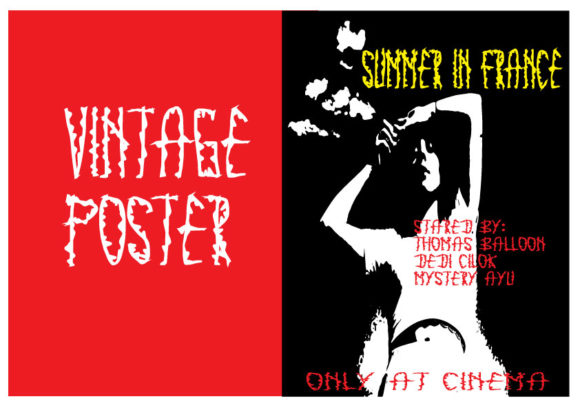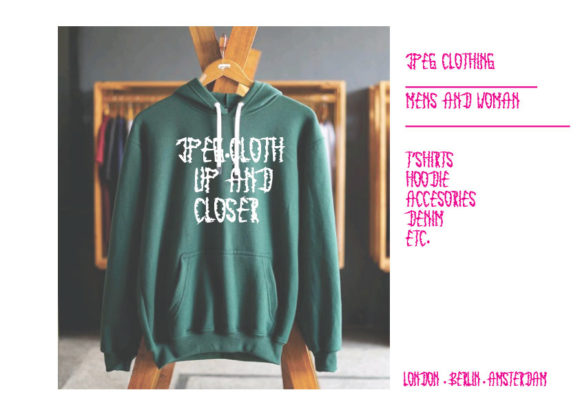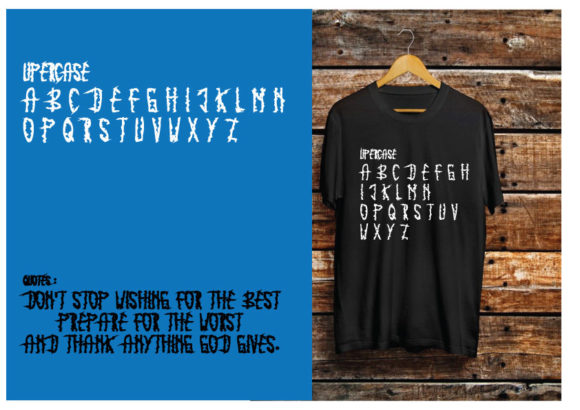
Introduction to Buds Element Font
Buds Element is a unique and interesting display font.
It is suitable for posters, logos, clothing and more Add it to your creative ideas and notice how it makes them stand out.
Buds Element Font offers exceptional quality and versatility, making it a valuable addition to your design toolkit. Whether you’re creating for personal projects or commercial use, Buds Element Font delivers professional results.